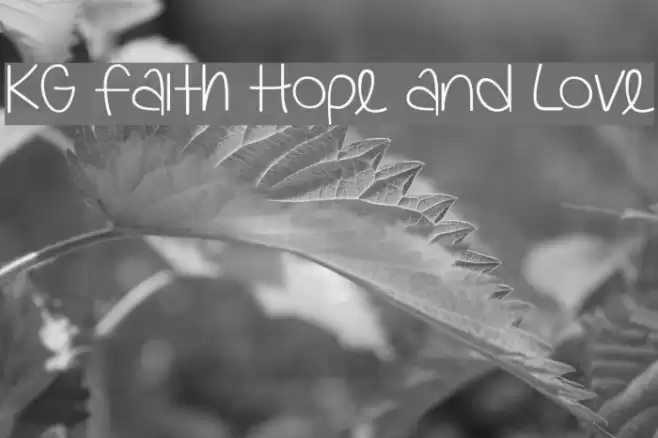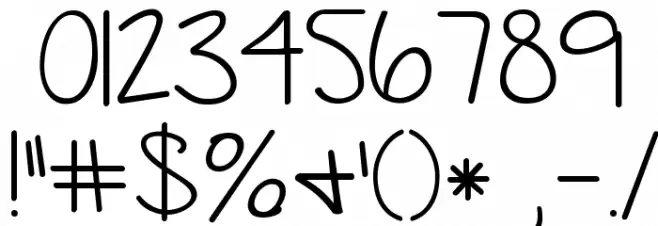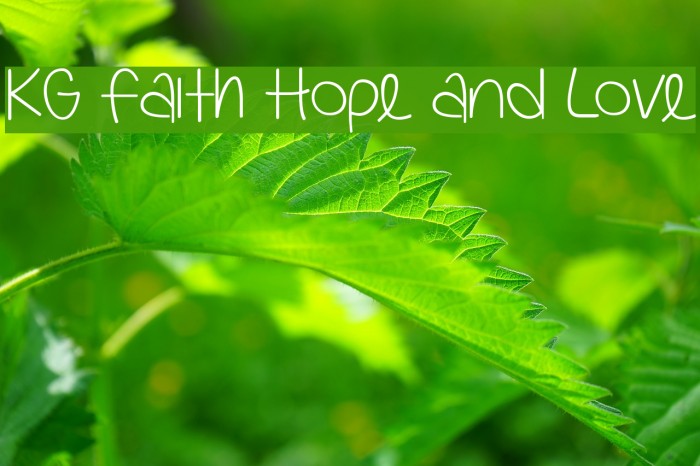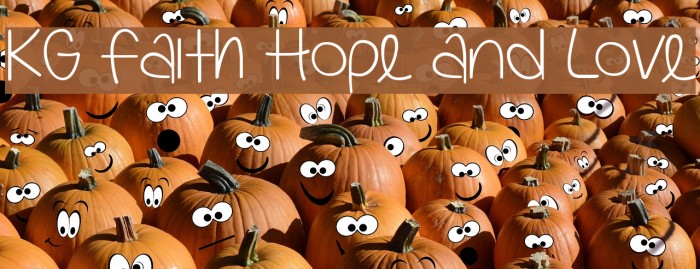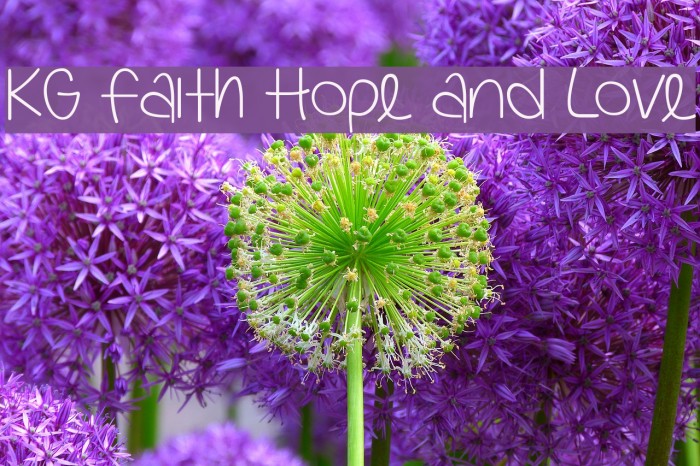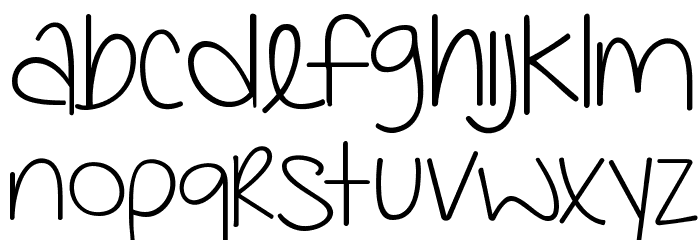
KG Faith Hope and Love Font
KG Faith Hope and Love Description
This font features a playful and whimsical handwritten style, characterized by its smooth, flowing lines and rounded edges. The uppercase and lowercase letters maintain a consistent height, creating a harmonious appearance. The numerals and special characters are designed with the same playful aesthetic, making them easily legible and visually appealing. The overall design exudes a sense of warmth and friendliness, making it suitable for a variety of creative projects.
A playful, handwritten font with smooth, rounded lines from Uncategorized fonts.
- Proposed Projects: Ideal for greeting cards, children's books, playful branding, and social media graphics.
- Overall Style: Playful
- Use Case: Headlines, Logos, Invitations